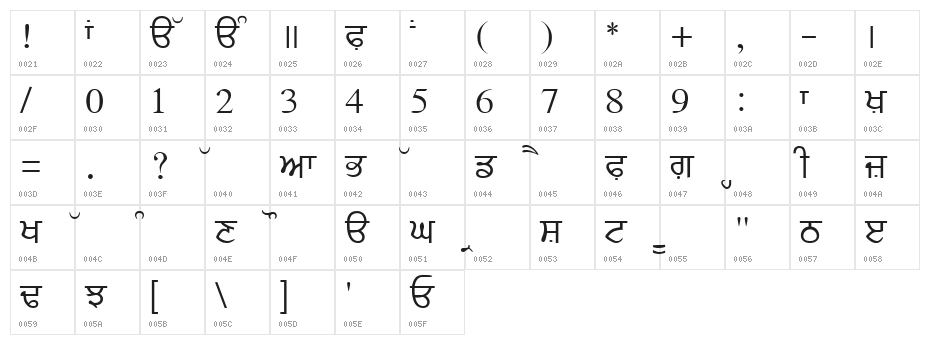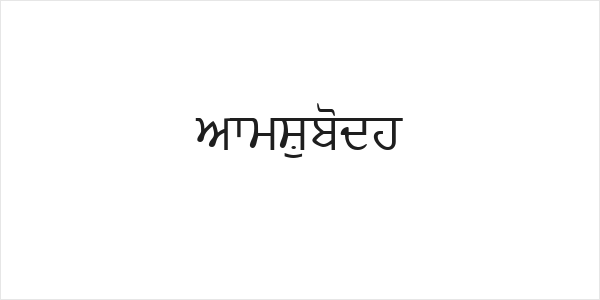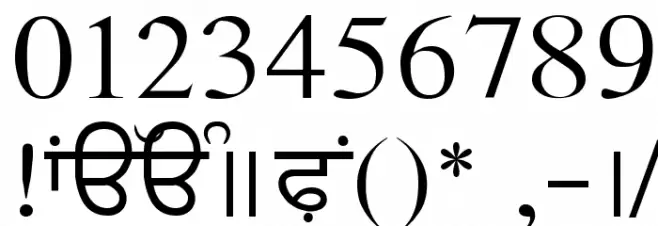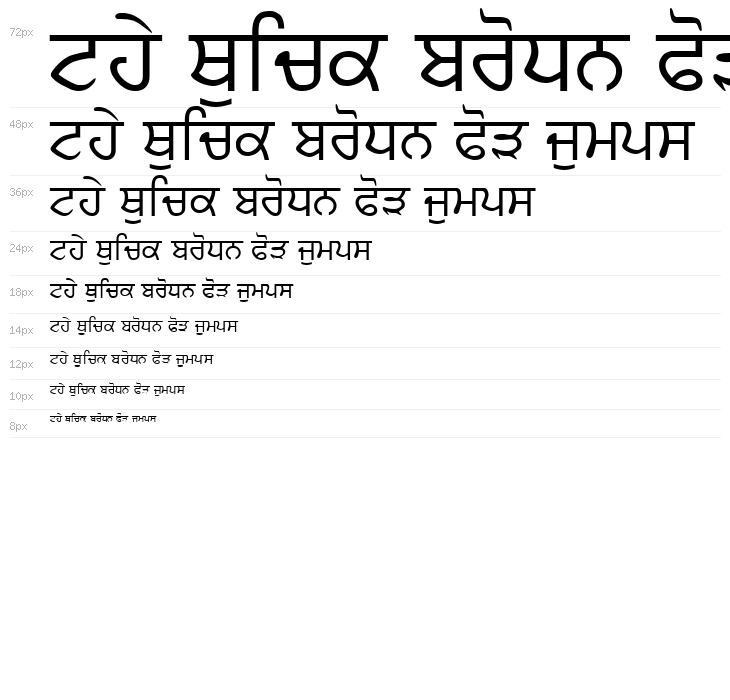
AmSubodh Font
AmSubodh Description
This font features a distinctive script style, characterized by its elegant curves and intricate detailing. The characters are crafted with a blend of traditional and modern elements, making it suitable for a variety of uses. The numerals are clear and well-defined, complementing the overall aesthetic. Special characters are included, enhancing its versatility. The font maintains a consistent weight and width, ensuring readability while adding a touch of sophistication.
| Use Case | Logos, Invitations, Artistic designs |
| Proposed Projects | Ideal for branding, invitations, cultural projects, and artistic designs. |